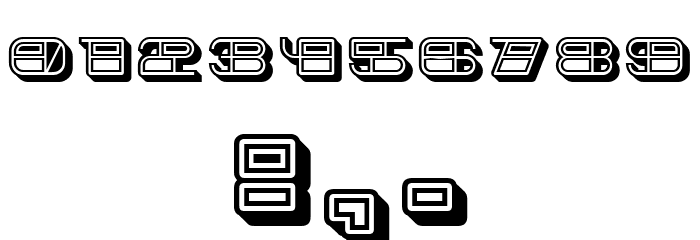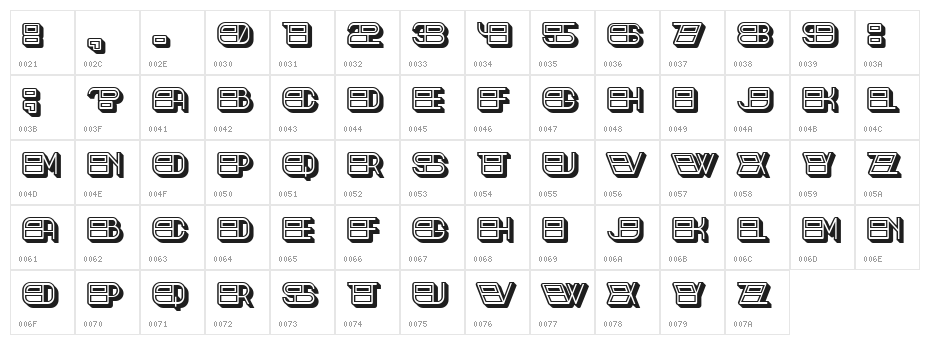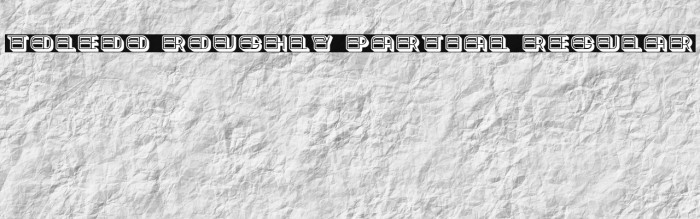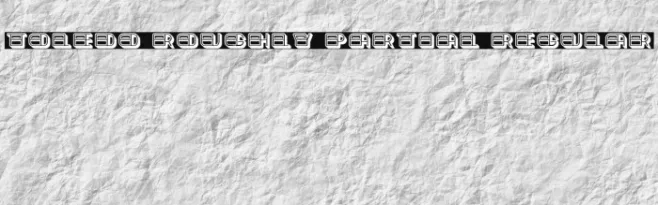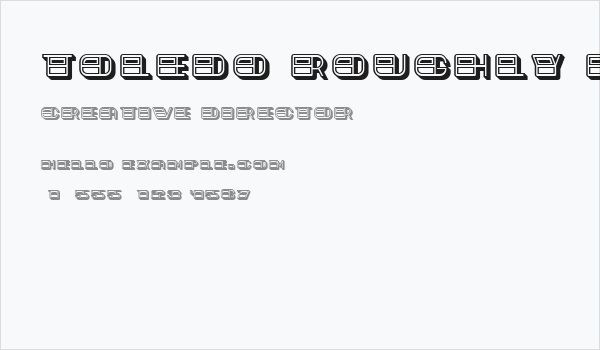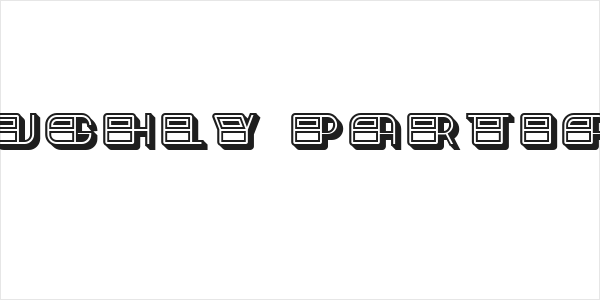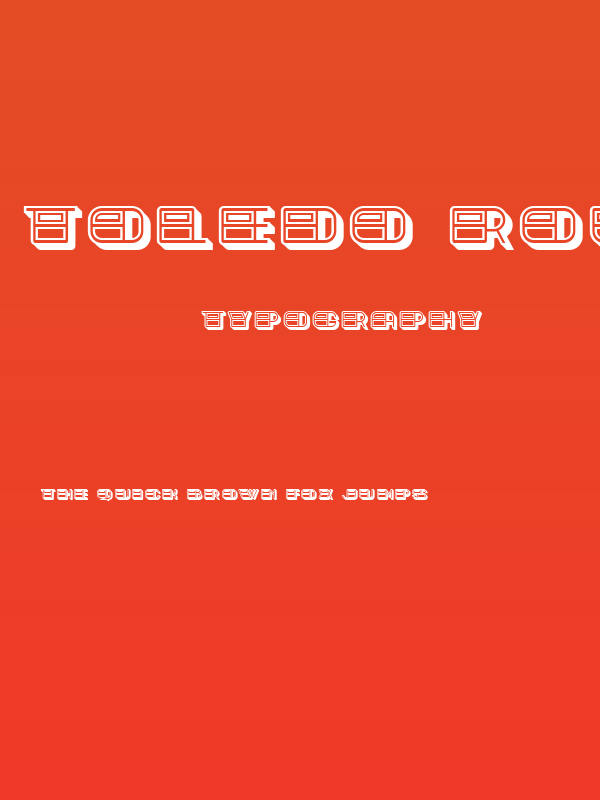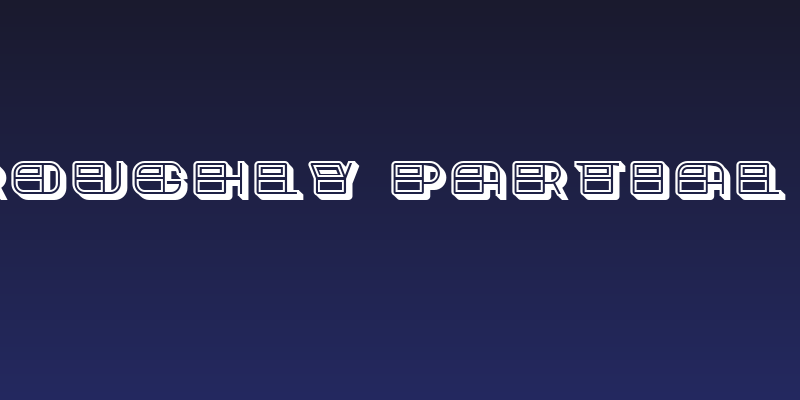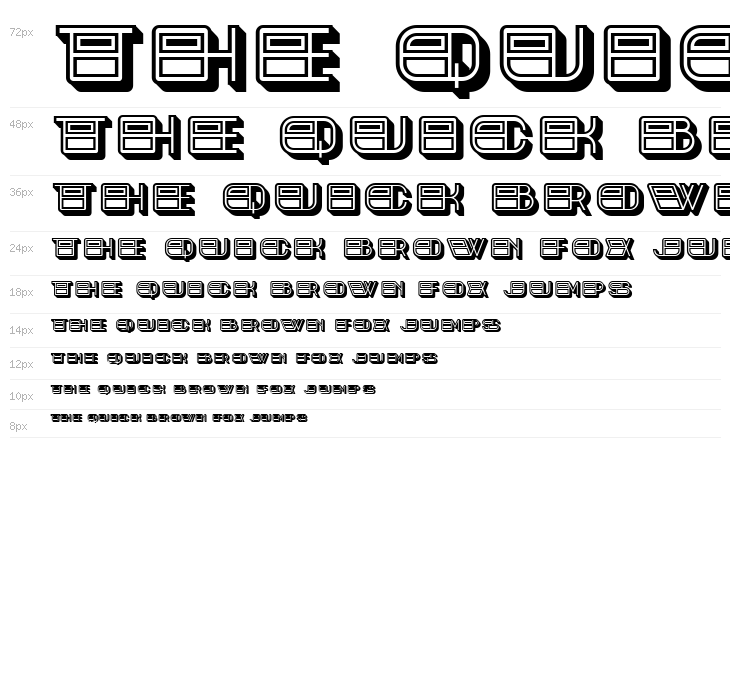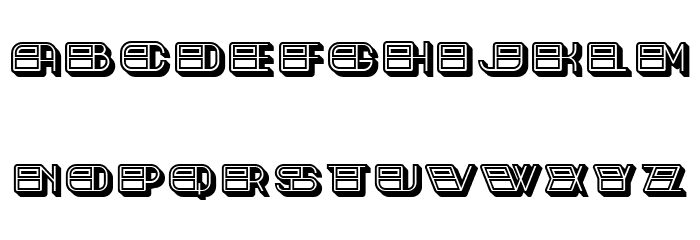
Toledo Roughly Partial Regular Font
Toledo Roughly Partial Regular Description
This font features a bold, geometric style with a distinct three-dimensional effect. Each character is outlined with a thick border, creating a layered appearance that adds depth and visual interest. The design incorporates sharp angles and clean lines, giving it a futuristic and industrial feel. The uppercase and lowercase letters maintain a consistent style, while the numbers and special characters are equally bold and striking. This font is ideal for projects that require a strong, impactful visual presence.